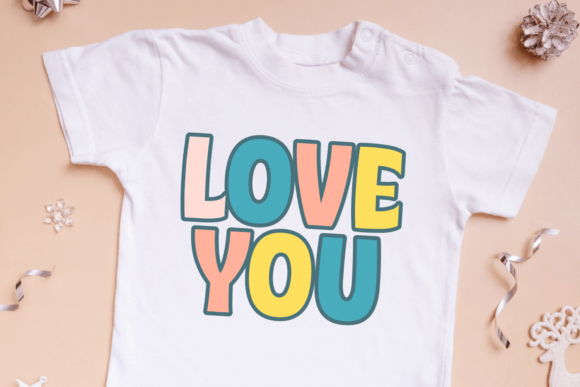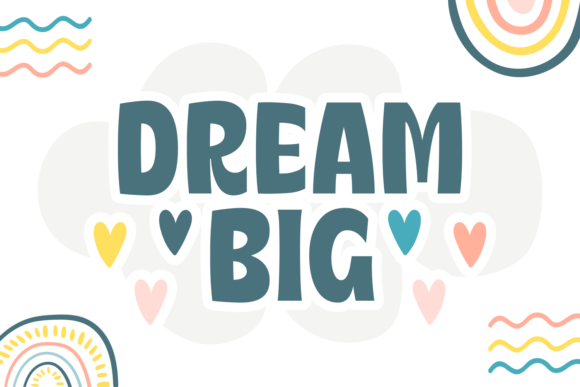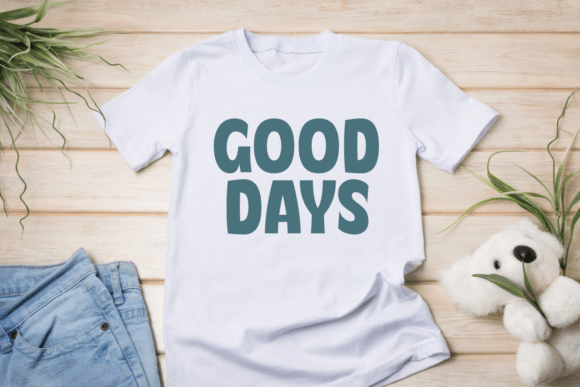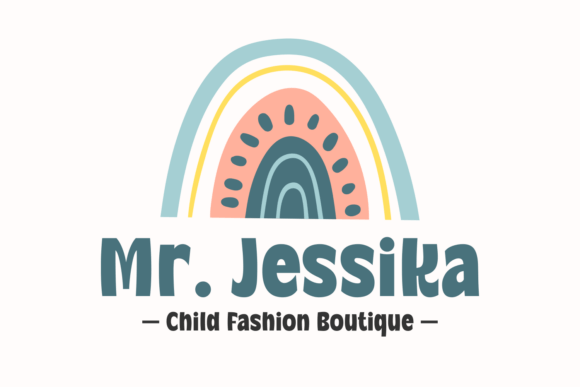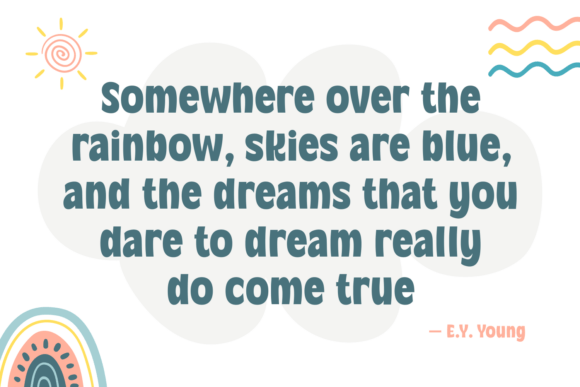
Dreaming Rainbow Font: Adding a Joyful Touch to Your Designs
Are you looking for a font that can add a playful and cheerful touch to your designs? Look no further than the Dreaming Rainbow Font! This fun and lively font is perfect for designers and crafters who want to create bold and eye-catching designs that are sure to grab attention.
What is Dreaming Rainbow Font?
Dreaming Rainbow Font is a bold, sans-serif font with thick letters that give it a playful and lively feel. The font has a bright and cheerful style that makes it perfect for adding a joyful touch to your designs. Whether you’re creating invitations, posters, or any other type of design, Dreaming Rainbow Font is sure to make it stand out.
Key Features of Dreaming Rainbow Font
- Bold and Thick Letters: The font features bold and thick letters that make it easy to read and perfect for creating eye-catching designs.
- Playful and Lively Style: The font has a playful and lively style that feels bright and cheerful, making it perfect for designs that require a fun touch.
- Easy to Read: The sans-serif style of the font makes it easy to read, even at smaller sizes, making it perfect for both kids and adults.
- Versatile: The font is versatile and can be used for a wide range of designs, from invitations to posters, and even digital graphics.
Why Use Dreaming Rainbow Font?
There are many reasons why you should consider using Dreaming Rainbow Font in your designs. Here are a few:
- Adds a Joyful Touch: The font adds a joyful and playful touch to your designs, making them perfect for designs that require a fun and lively feel.
- Perfect for Kids and Adults: The font is easy to read and perfect for both kids and adults, making it a great choice for designs that require a universal appeal.
- Great for Digital and Print Designs: The font is perfect for both digital and print designs, making it a versatile choice for designers and crafters.
How to Use Dreaming Rainbow Font?
Using Dreaming Rainbow Font is easy! Here are a few tips to get you started:
- Pair it with Other Fonts: Pair Dreaming Rainbow Font with other fonts to create a unique and eye-catching design.
- Use it for Headings: Use Dreaming Rainbow Font for headings and titles to add a bold and playful touch to your designs.
- Experiment with Colors: Experiment with different colors to find the perfect combination that works with Dreaming Rainbow Font.
Design Ideas Using Dreaming Rainbow Font
- Party Invitations: Use Dreaming Rainbow Font to create fun and playful party invitations that are sure to grab attention.
- Colorful Posters: Use Dreaming Rainbow Font to create colorful posters that are perfect for advertising events or promoting products.
- Digital Graphics: Use Dreaming Rainbow Font to create digital graphics, such as social media graphics or blog headers, that are sure to stand out.
Dreaming Rainbow Font is a fun and lively font that is perfect for designers and crafters who want to add a playful and cheerful touch to their designs. With its bold and thick letters, playful style, and easy readability, it’s perfect for a wide range of designs, from invitations to posters. So why not give it a try and see how it can elevate your designs?
Whether you’re a professional designer or a crafter, Dreaming Rainbow Font is a great addition to your font collection. So go ahead, get creative, and have fun with Dreaming Rainbow Font!